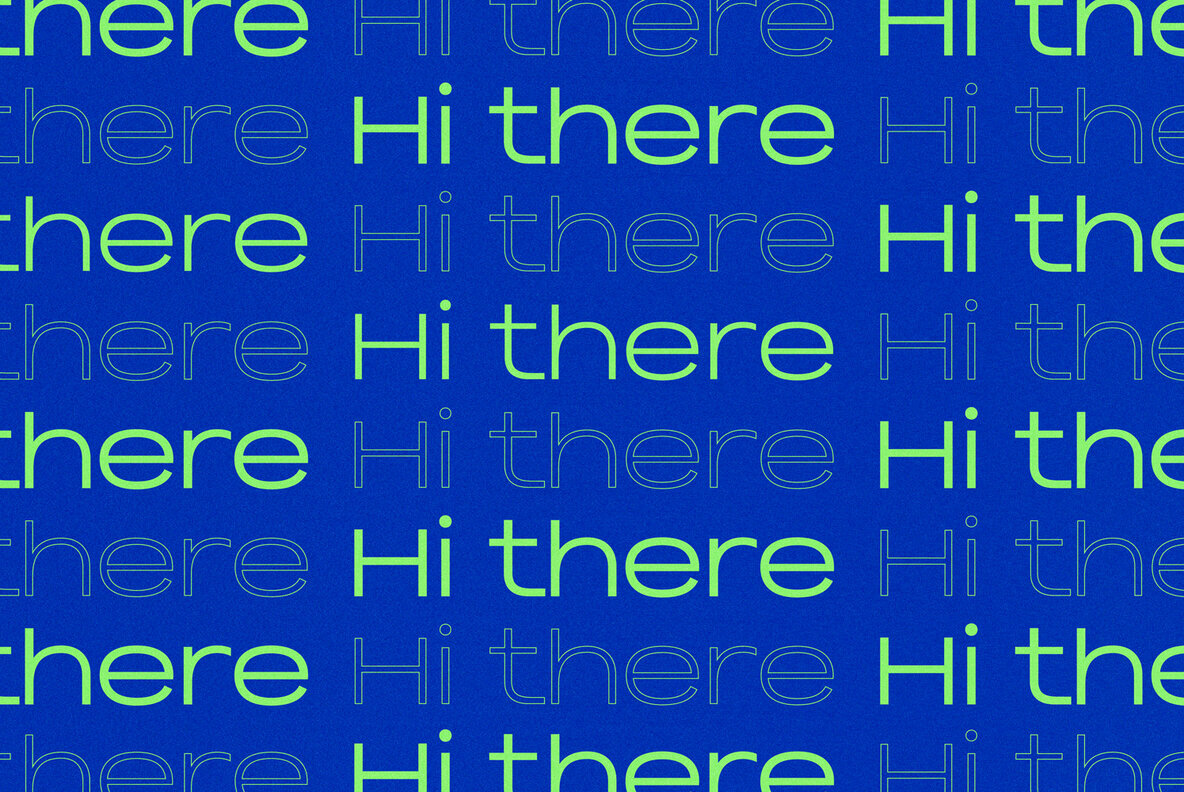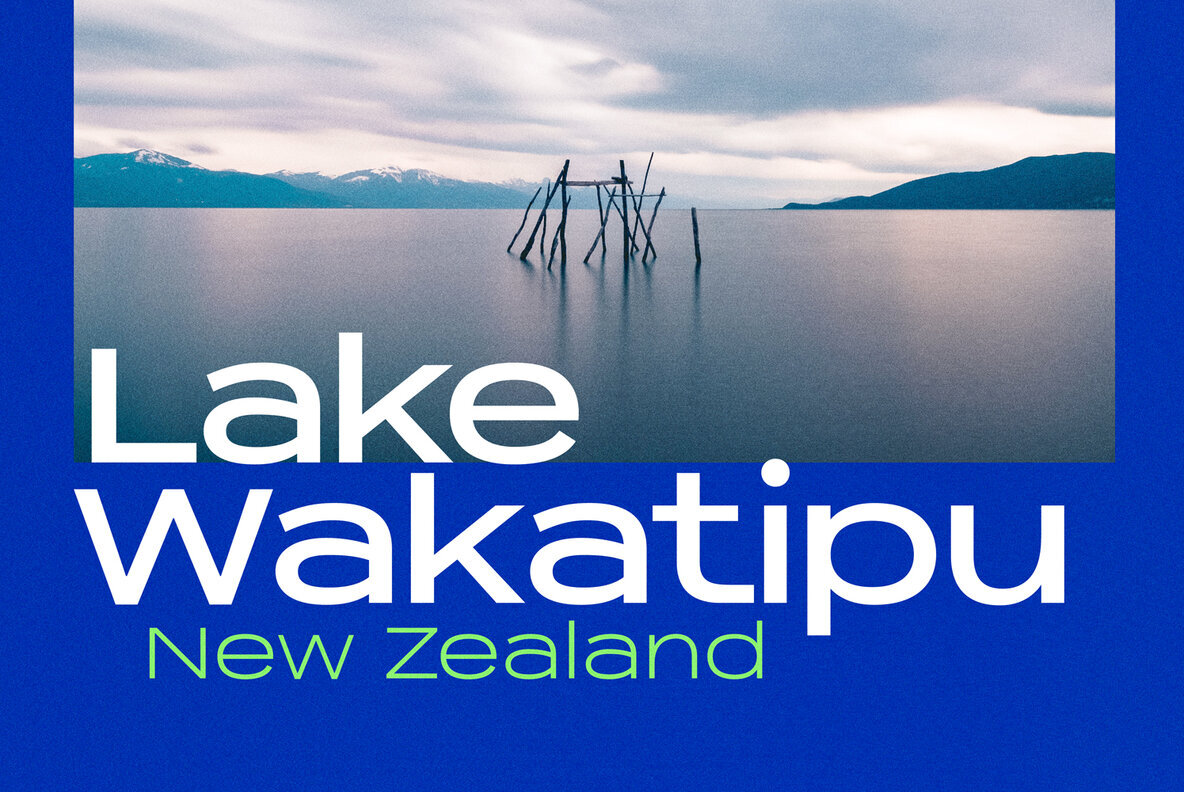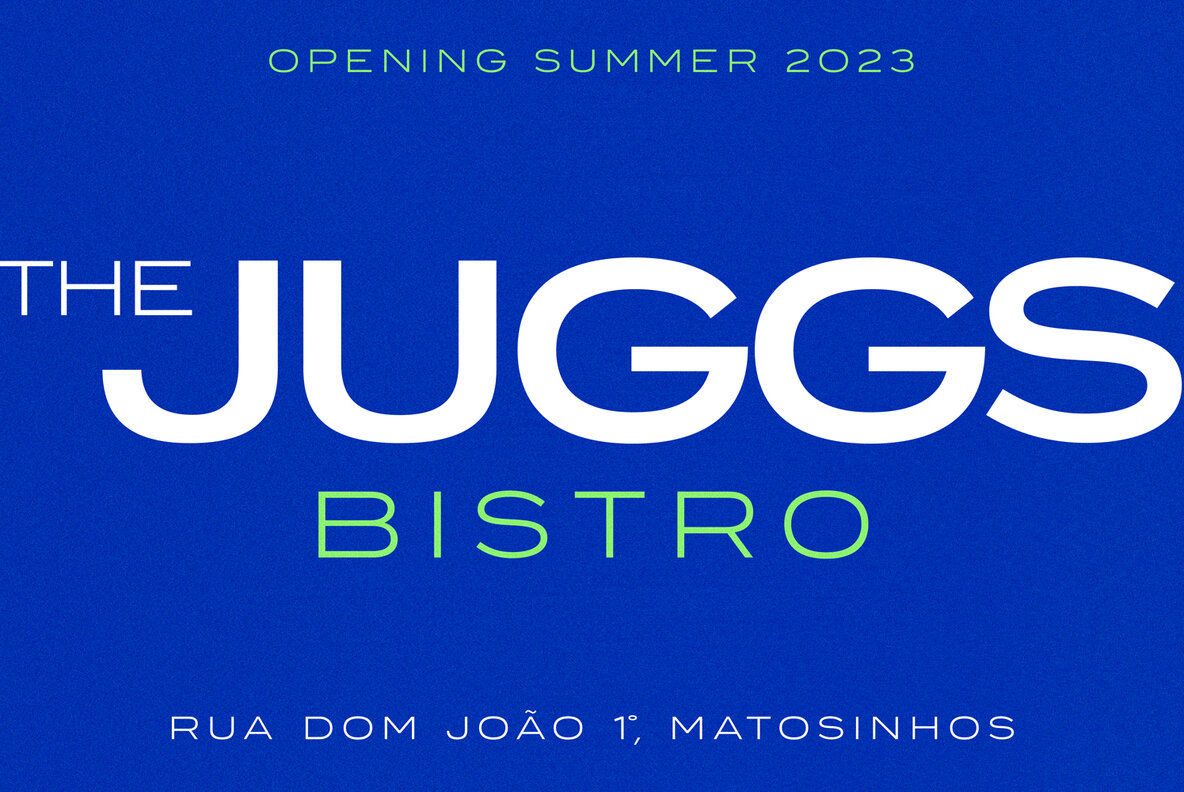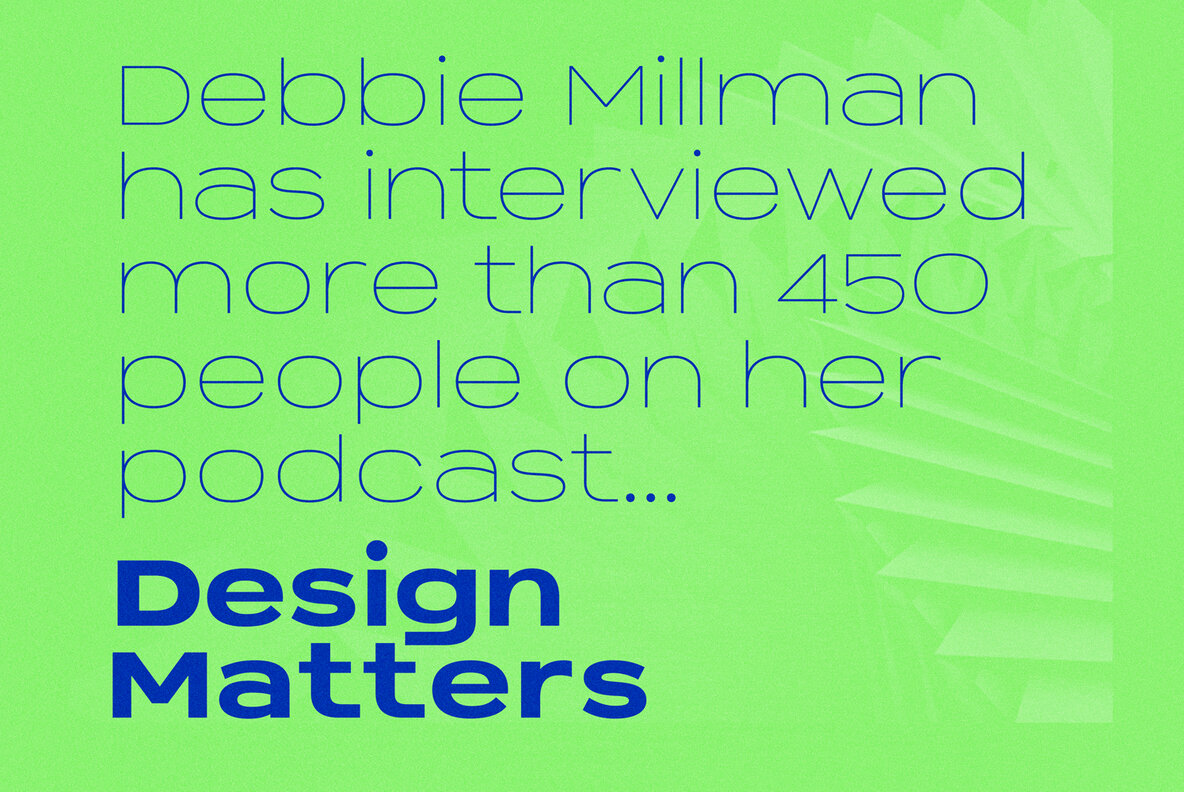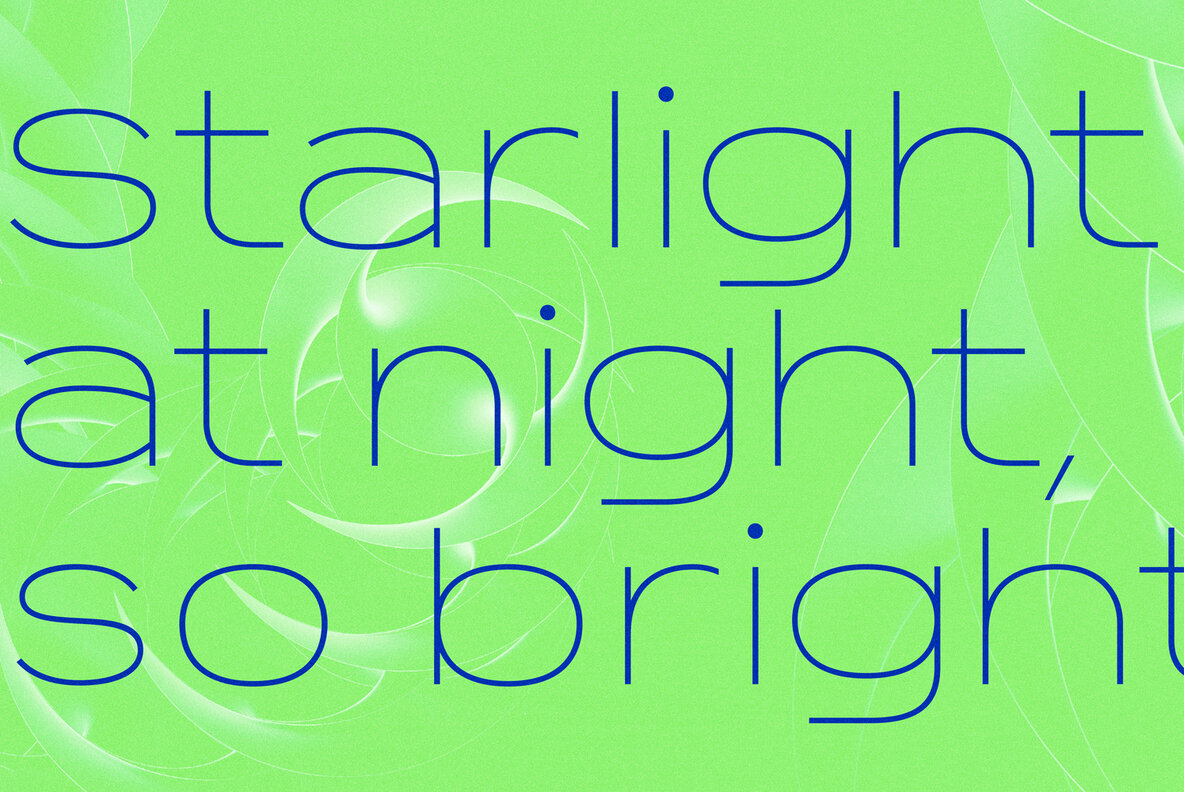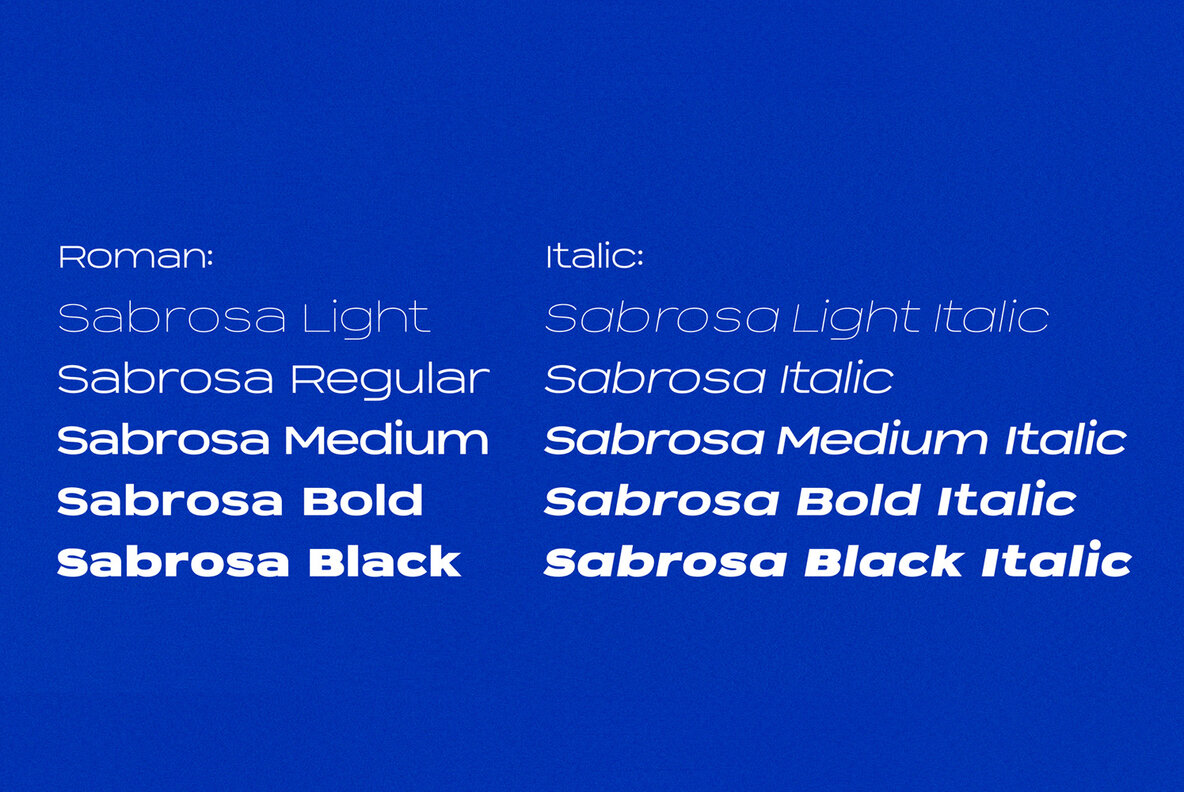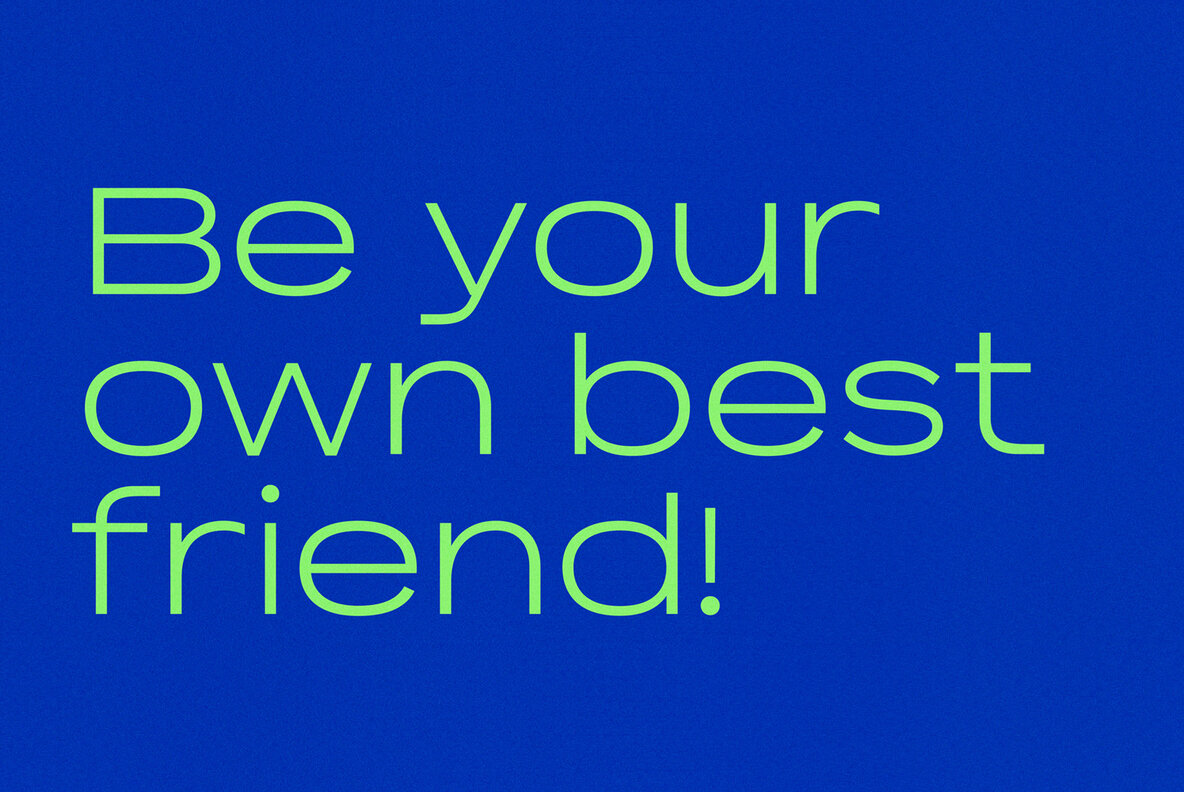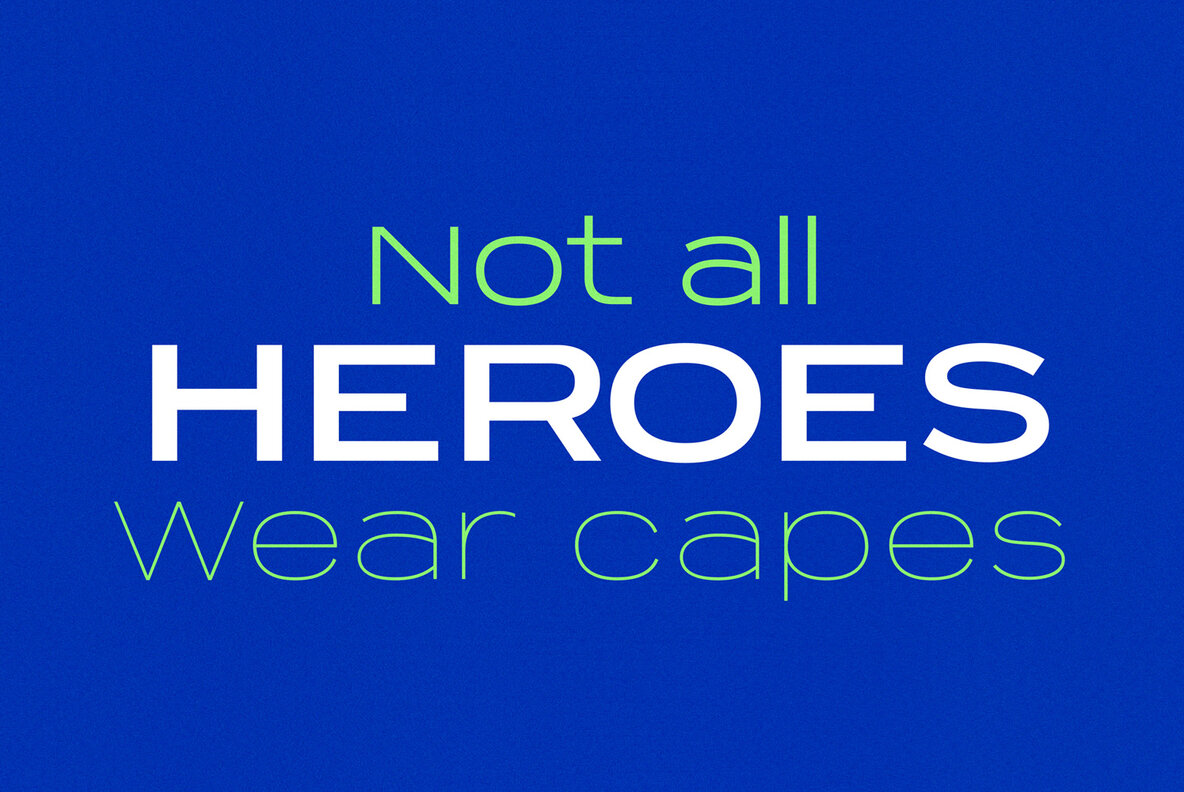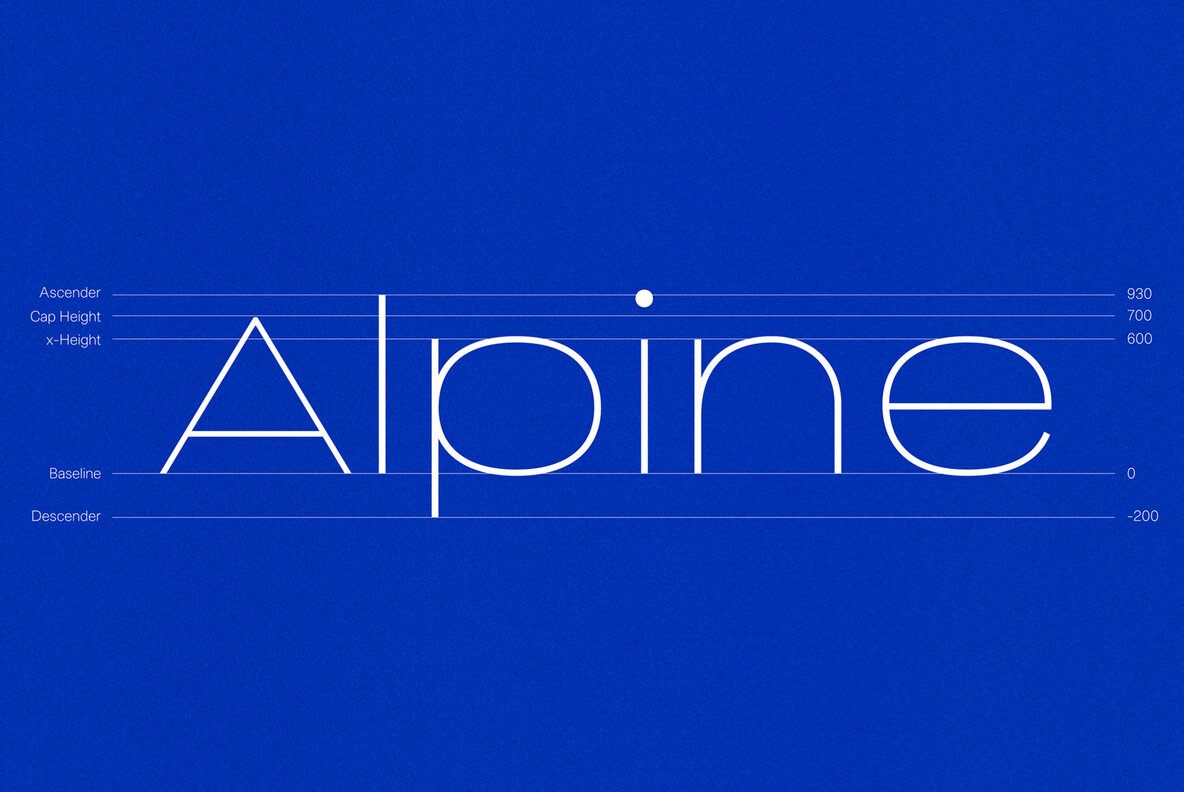
Sabrosa Font
This display type family is thoughtfully crafted to excel in the realm of large headlines. The fonts strike a delicate balance, ensuring that your message is conveyed with clarity and impact, without coming across as overly assertive or "shouty." As you explore the versatility of this typeface, you'll find that it gracefully navigates the fine line between commanding attention and maintaining a sense of restraint. The result is a font that lends itself to a variety of applications, allowing you to create bold, engaging headlines without overwhelming your audience. Immerse yourself in the subtle artistry of this display type family, and let your designs speak for themselves with confidence and poise.